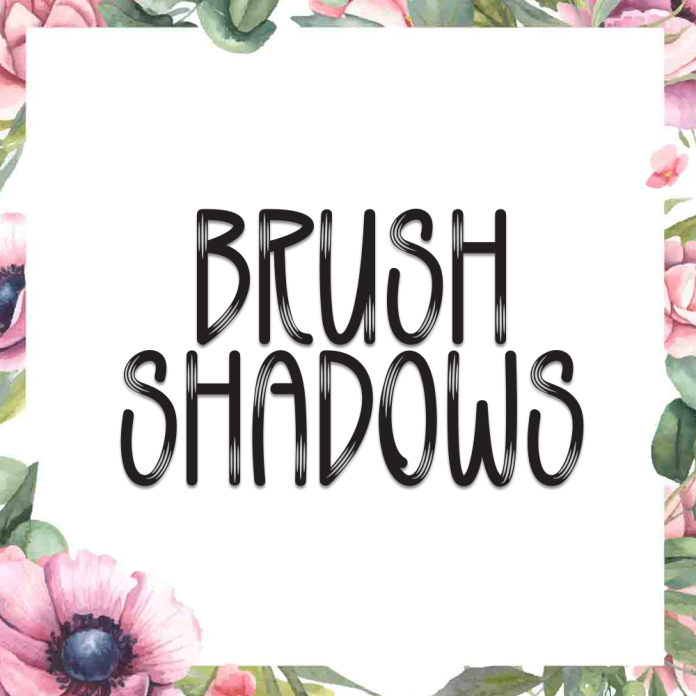
Brush Shadows is a striking display font with a hand-painted brush style and dynamic shadow effects. Its bold strokes and textured look give your designs an energetic and expressive vibe that stands out.
Perfect for posters, album covers, branding, sports graphics, headlines, and streetwear designs, Brush Shadows delivers a raw, edgy aesthetic with a creative flair.
Bold brush-style display font with shadow detail
Eye-catching texture and strong personality
Great for urban designs, bold titles, and expressive layouts
Make a powerful impression with Brush Shadows — the display font that brings energy, texture, and bold style to your projects.